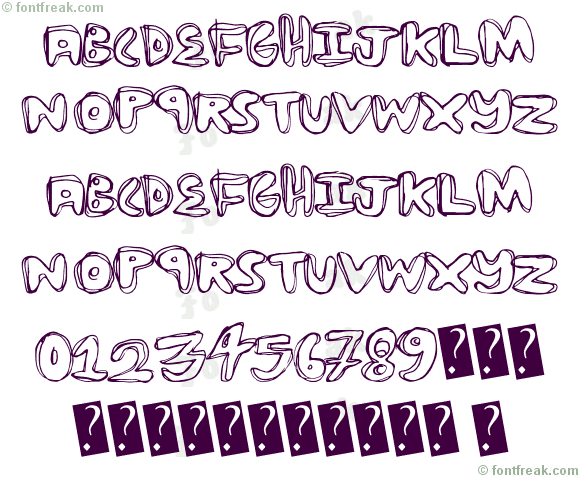
StoryTime
The StoryTime font by Xerographer Fonts is a delightful handwritten typeface that captures the charm of storytelling. Characterized by its playful, irregular strokes and whimsical design, this font exudes a sense of warmth and creativity. The varying stroke weights and soft curves contribute to its approachable feel, making it a perfect choice for projects that aim to convey a personal touch. The spacing is well-balanced, allowing for easy readability while maintaining its artistic flair.
Ideal for a variety of applications, the StoryTime font shines in contexts such as children's book covers, where its friendly appearance invites young readers. It also works beautifully for birthday invitations, adding a festive and joyful atmosphere to any celebration. Additionally, this font can enhance marketing materials for creative businesses, such as bakeries or art studios, where a touch of whimsy can make a lasting impression. Content creators will find it useful in social media graphics, making their posts stand out with a unique and engaging style.
What sets the StoryTime font apart is its ability to blend fun and functionality seamlessly. Its distinctive style not only captures attention but also evokes a sense of nostalgia, making it memorable in a crowded digital landscape. Whether you're crafting a heartfelt message or promoting a new product, the StoryTime font free download is an excellent addition to any creative toolkit, providing an expressive voice that resonates with audiences of all ages.